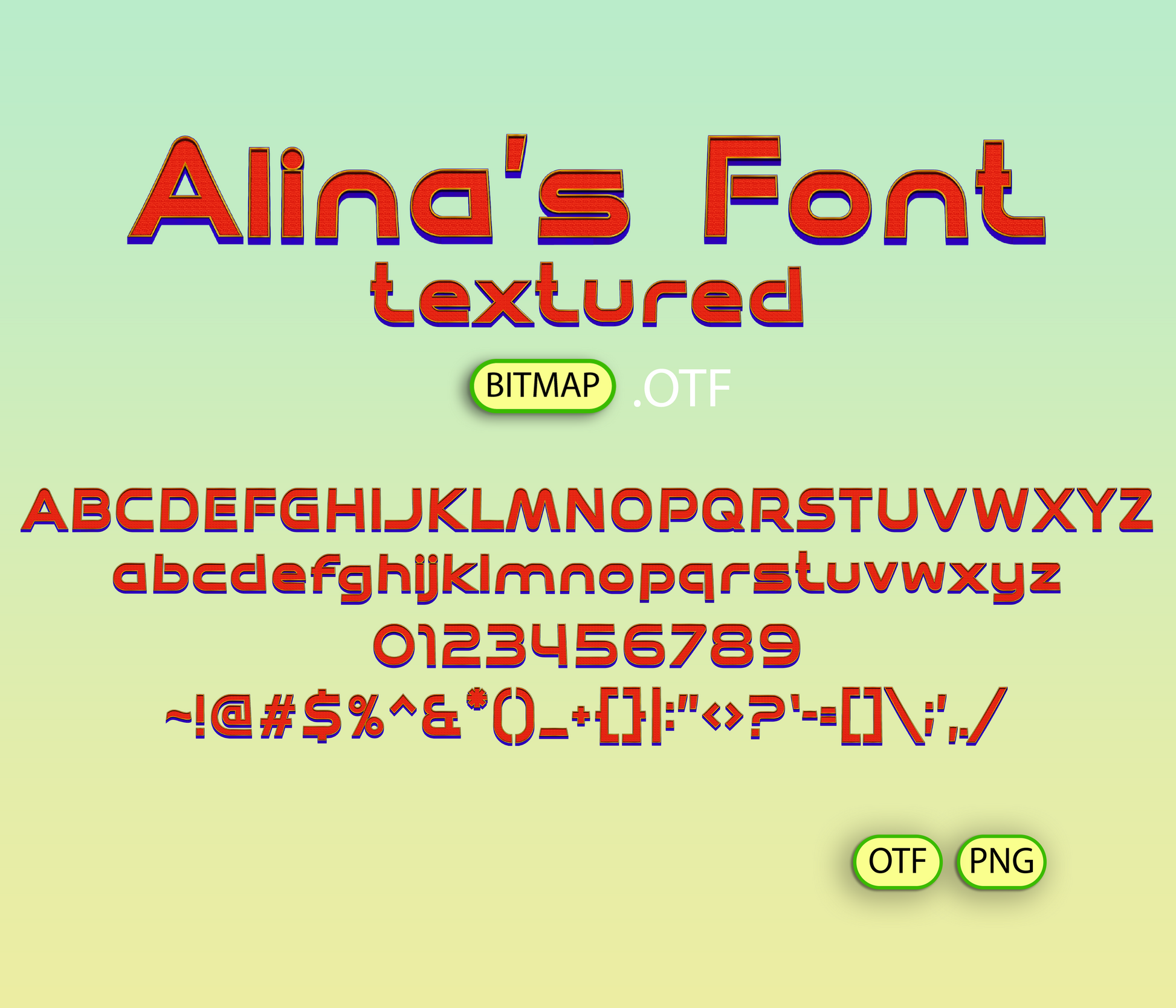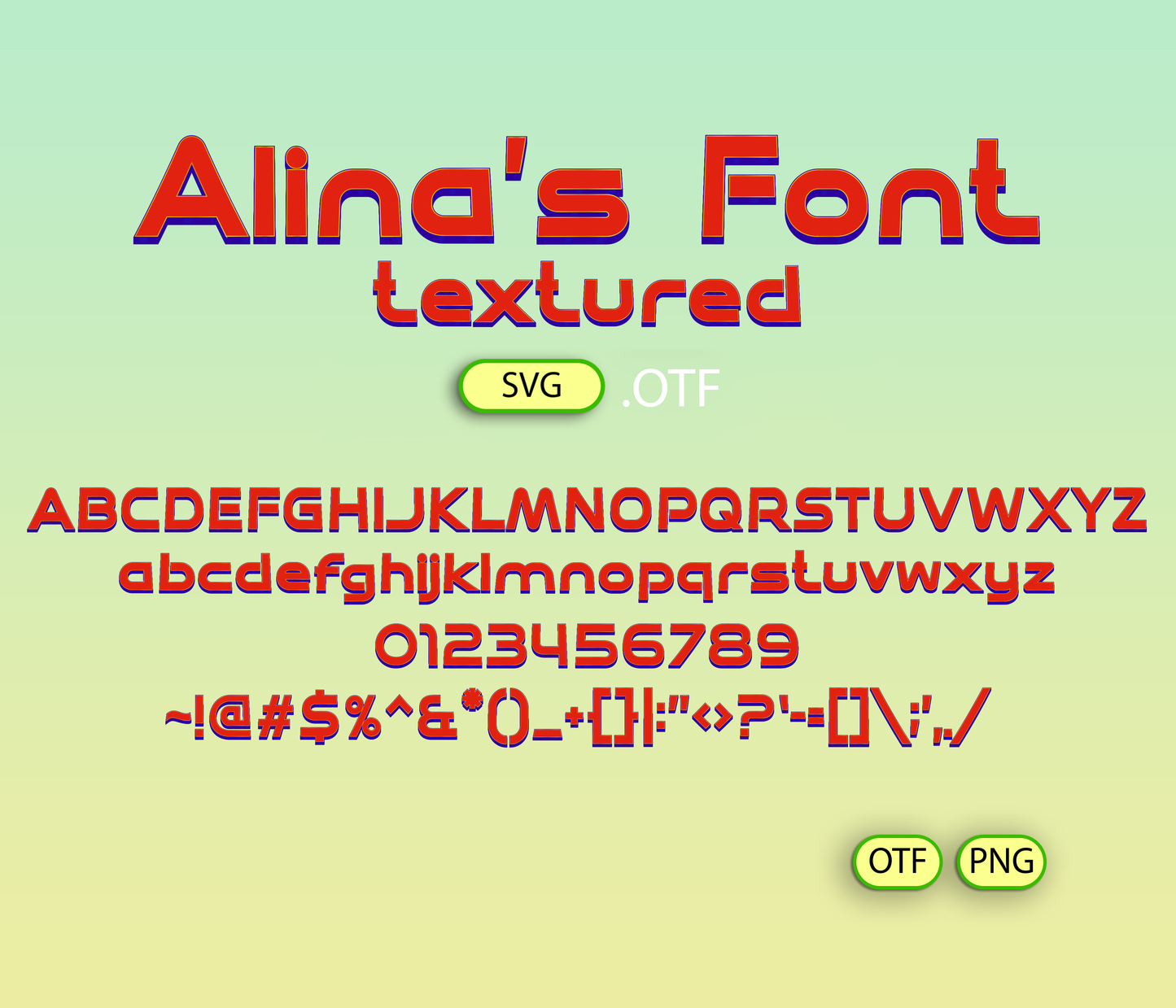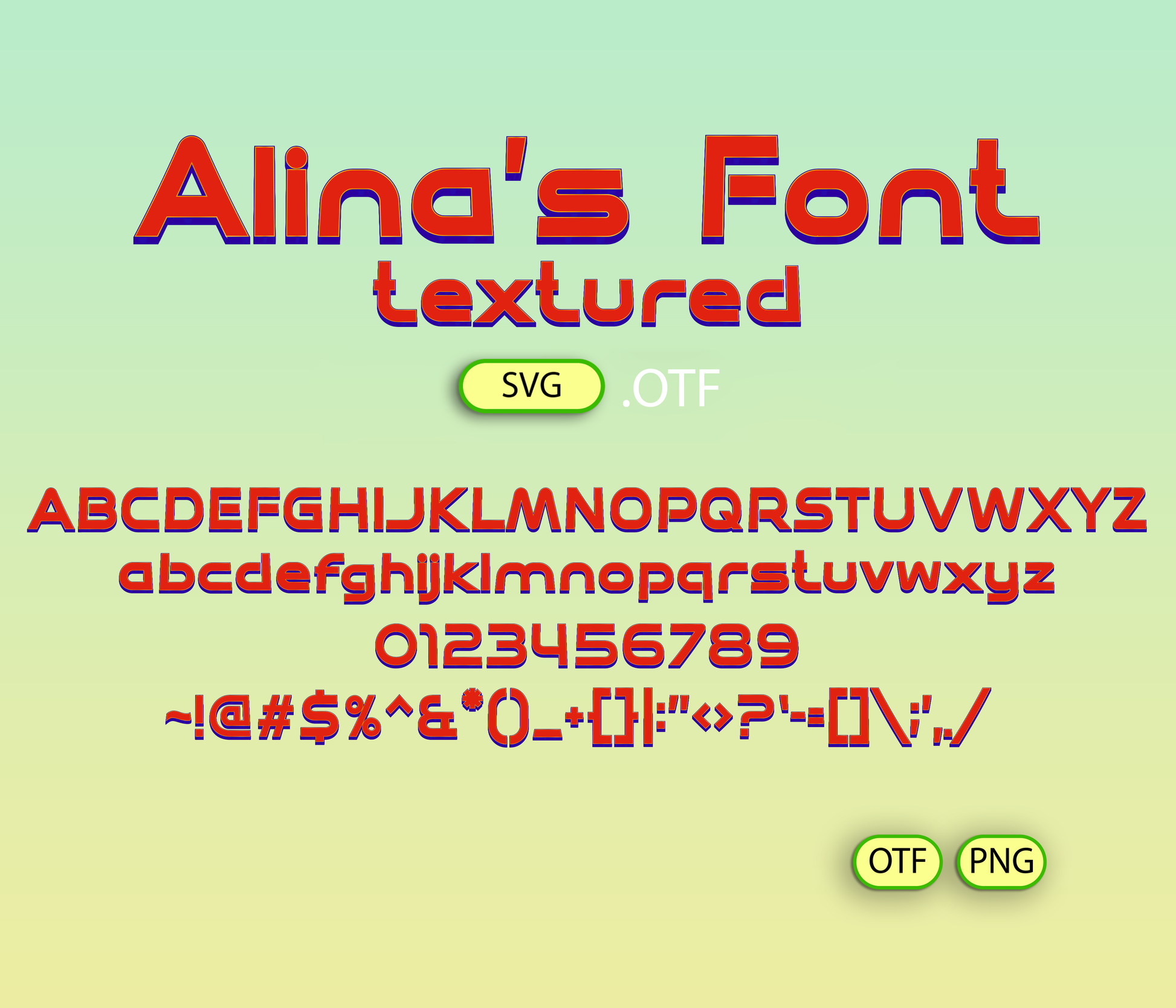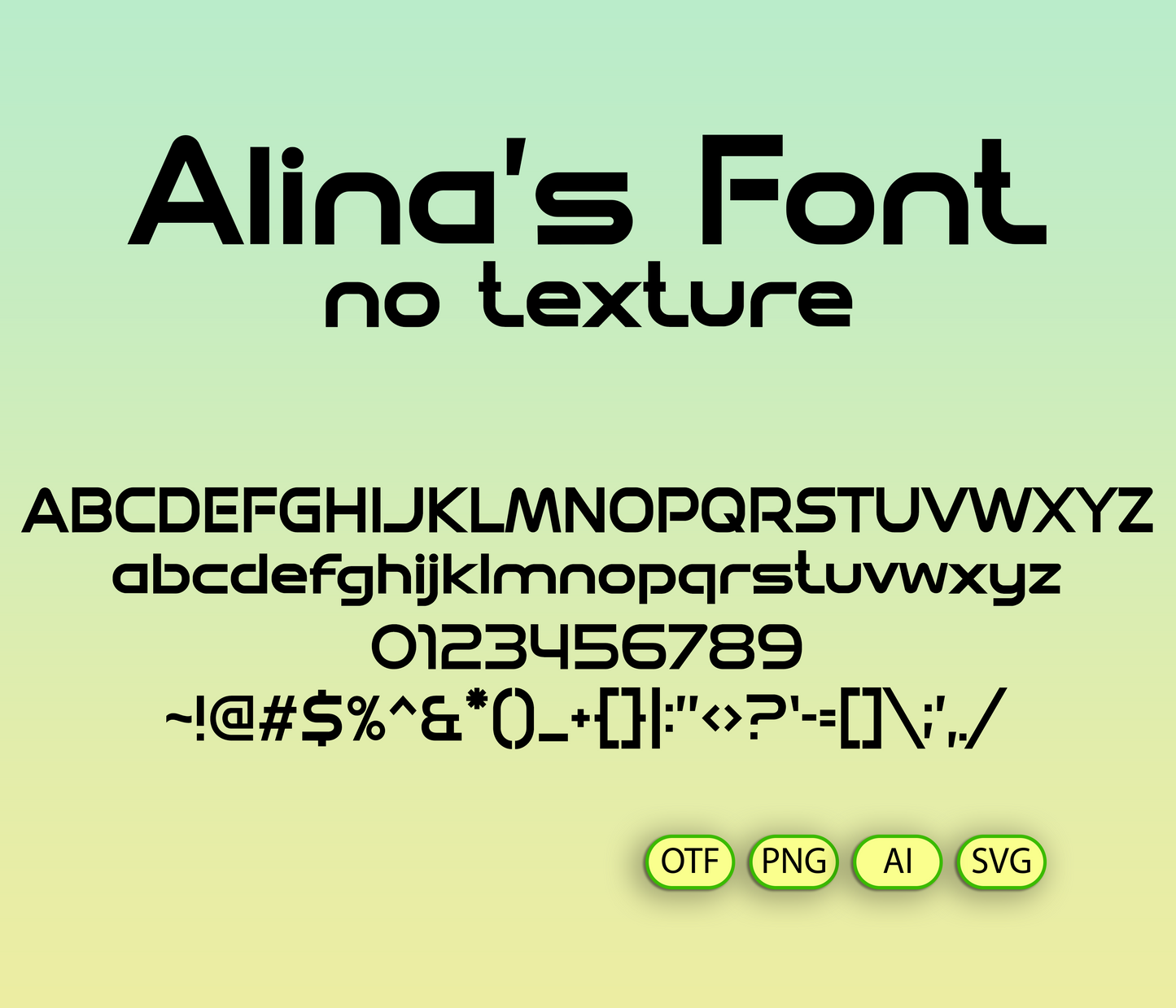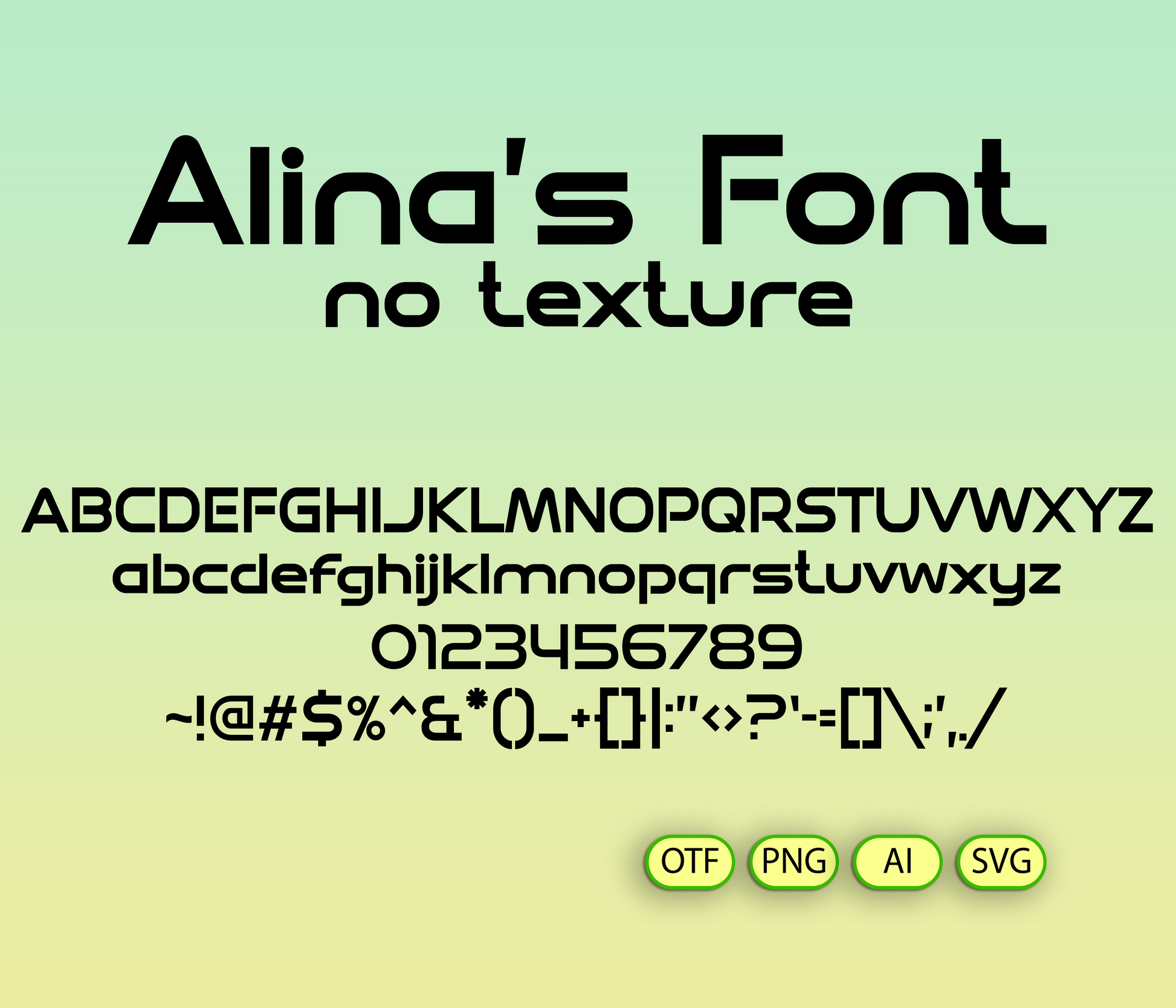
Global Web-Slinger Adventure Font Textured
Embark on an international journey with our Global Web-Slinger Adventure font, inspired by the globetrotting escapades of a beloved superhero in an action-packed movie. This font captures the essence of thrilling adventures across the globe, combining elements of intrigue, heroism, and the challenges of stepping up. Each character in the Global Web-Slinger Adventure font is designed to mirror a blend of youthful energy, international mystery, and evolving identity, making it perfect for projects that aim to bring the excitement and scale of this epic tale to life.
What Font is Global Web-Slinger Adventure?
Picture a typeface that encapsulates the dynamic, adventurous, and sophisticated spirit of a young hero's journey abroad. Our Global Web-Slinger Adventure font is meticulously crafted to echo visual themes of international travel, focusing on sleek, modern letterforms that convey a sense of agility and global flair. The font includes an extensive character set, featuring alphabets, numbers, and special symbols, offering a versatile toolkit for various design projects, from fan-based content to travel-themed merchandise.
What Can You Do With Global Web-Slinger Adventure?
The Global Web-Slinger Adventure font is versatile and ideal for a range of creative and dynamic applications:
- Movie-Themed Design Projects: Ideal for creating promotional materials, posters, or merchandise for fans of superhero franchises.
- Themed Event Invitations: Craft engaging invitations for movie screenings, superhero-themed parties, or comic book conventions.
- Merchandise and Apparel Design: Perfect for designing clothing, accessories, and souvenirs that resonate with fans of international escapades.
- Digital Content and Social Media: Use the font to add a heroic and adventurous touch to websites, blogs, and social media posts.
- Educational Materials: Incorporate the font into teaching resources or presentations related to travel, geography, or international culture.
- Promotional Materials: Utilize the font in advertising campaigns for products, events, or services related to the superhero genre or travel.
- Interior Decor: Employ the font for wall art, decals, or signage in entertainment spaces, travel agencies, or themed rooms.
- Creative Art and DIY Projects: Ideal for crafting, scrapbooking, and artistic projects inspired by superhero universes and global travel.
- Event Signage: Develop eye-catching signs and banners for themed events, screenings, or international festivals.
The Global Web-Slinger Adventure font is more than just a typeface; it's an exploration into the world of a beloved superhero on a global adventure.